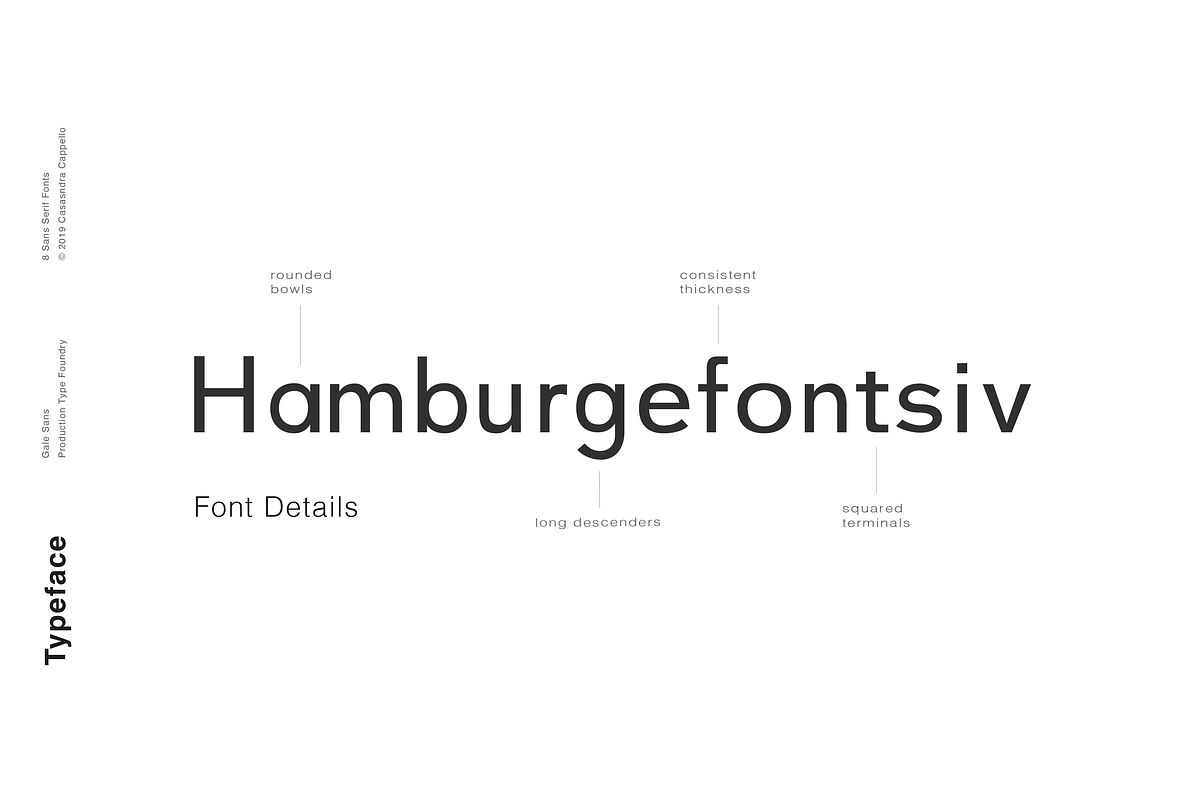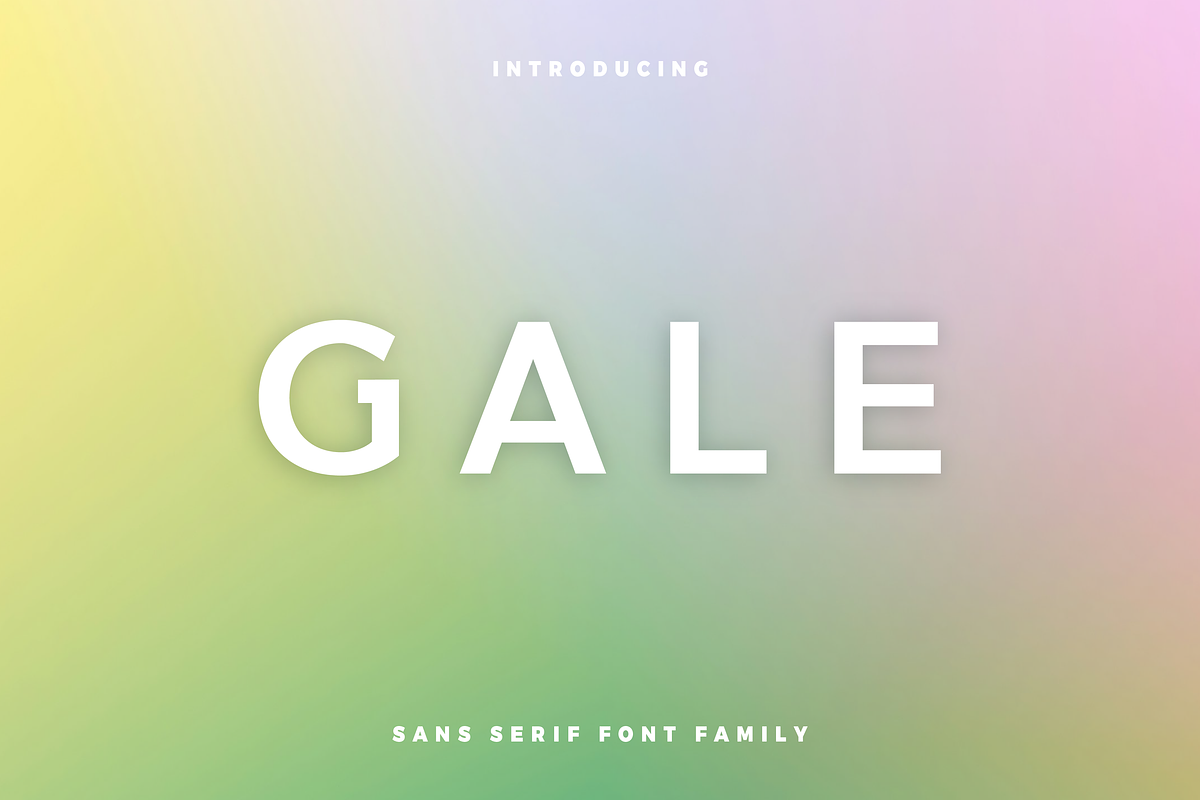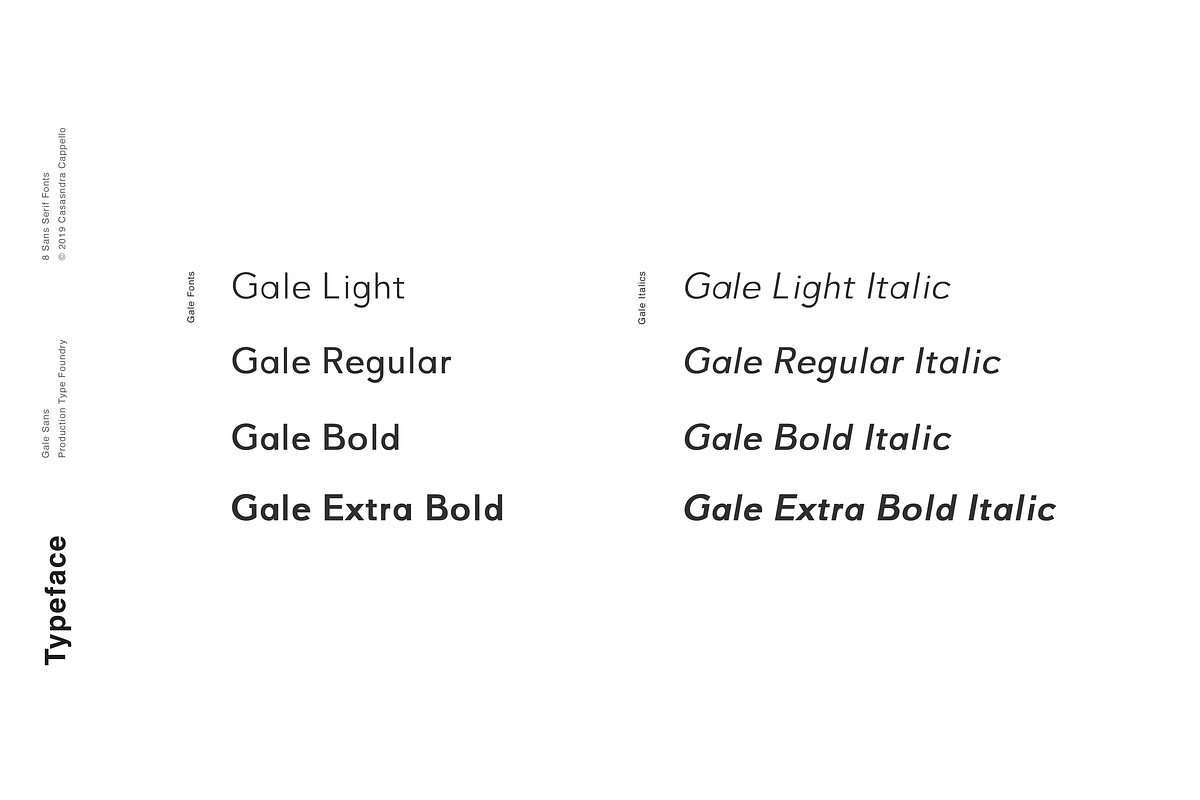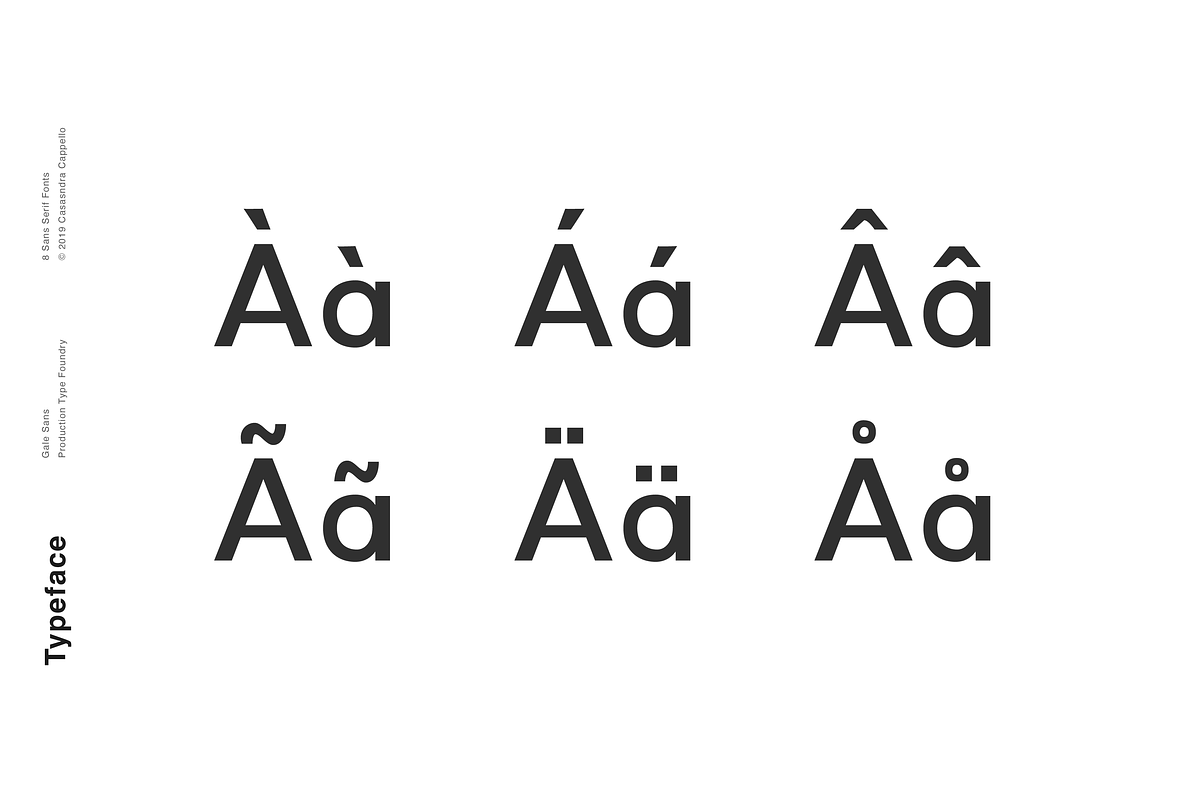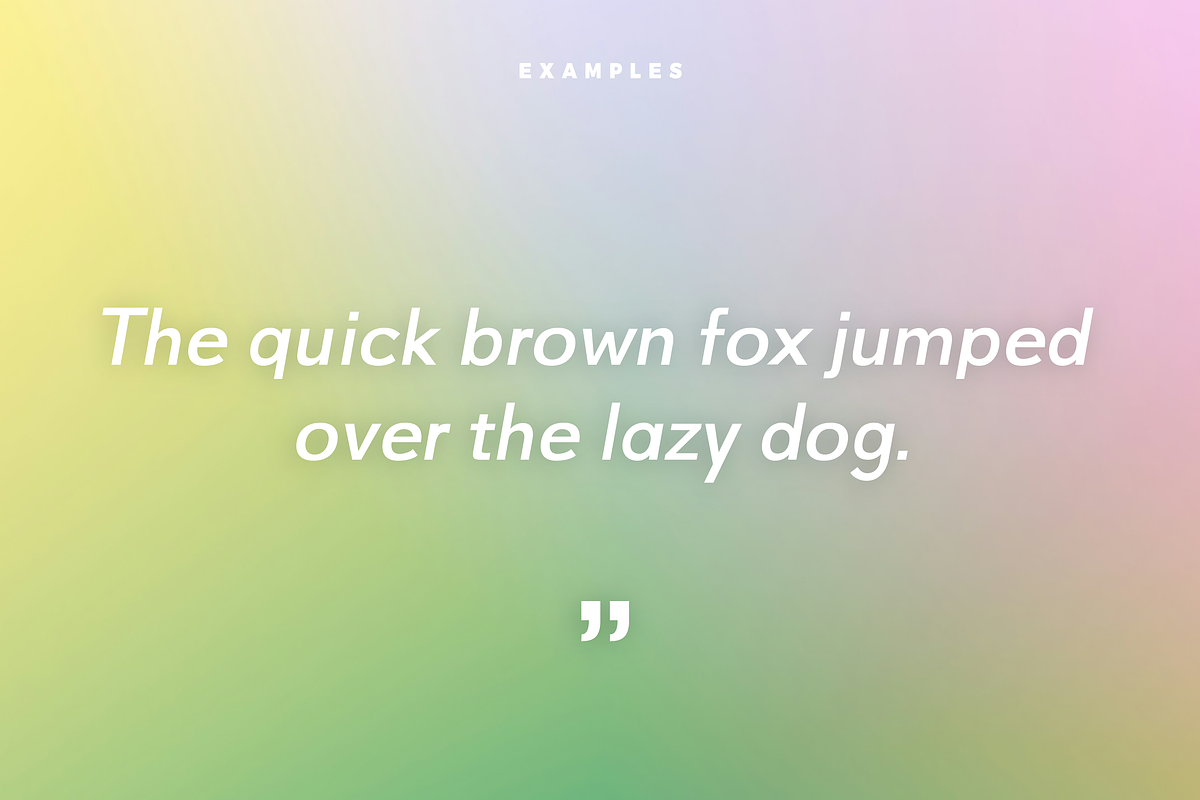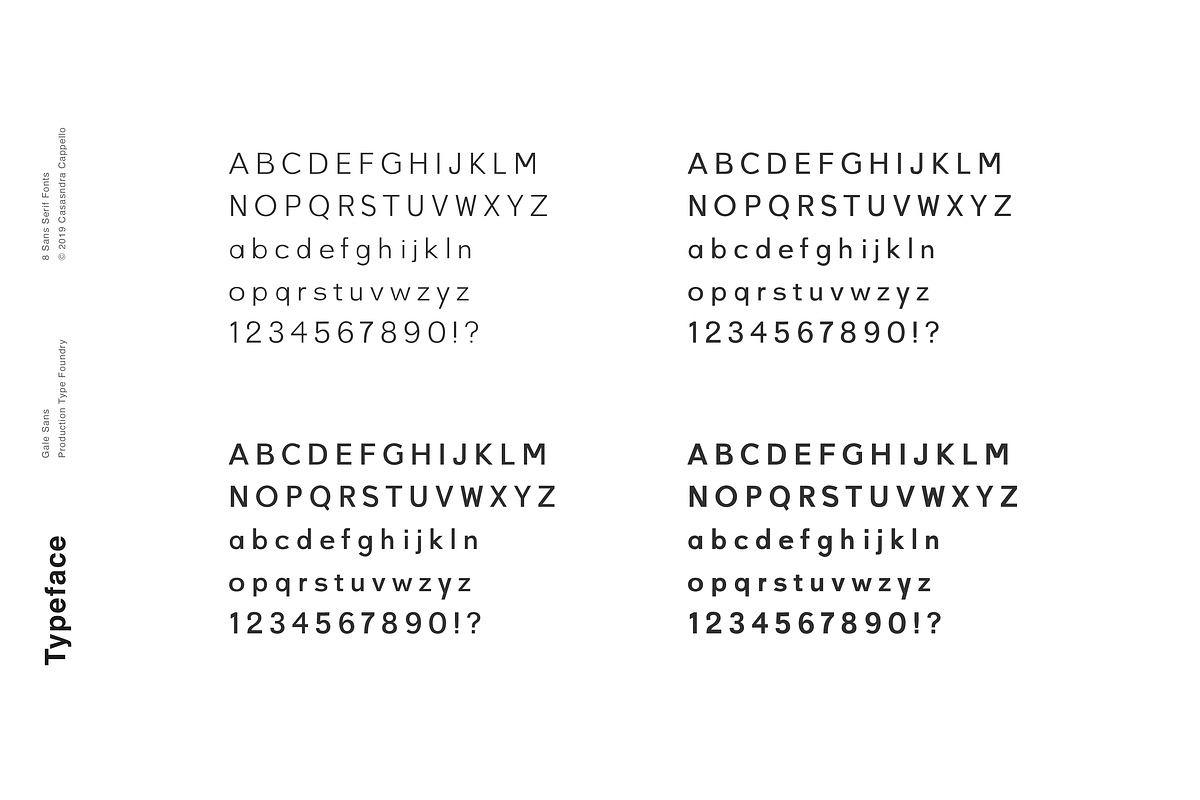
Gale - Feminine Geometric Sans Serif
Gale is a modern, feminine, geometric, sans serif typeface. It has a little bit of personality and can be used for both headers and body copy. This font family includes all Latin characters (including accents), numbers, special characters, and punctuation.
Gale includes eight fonts in OTF format: four weights and four italics.